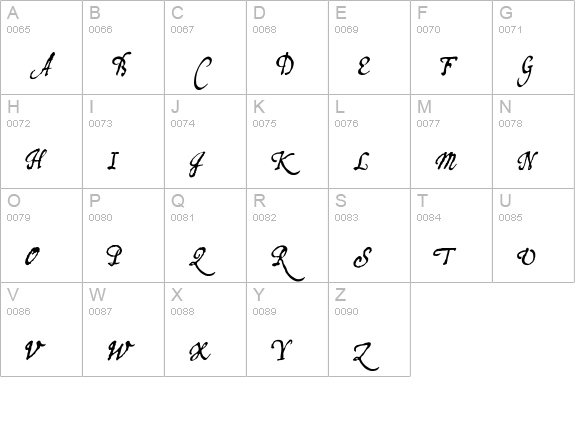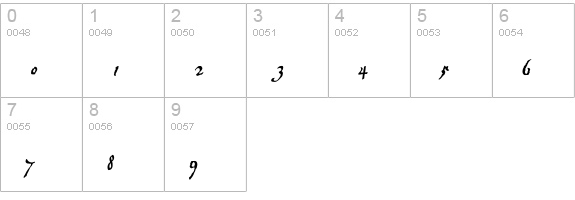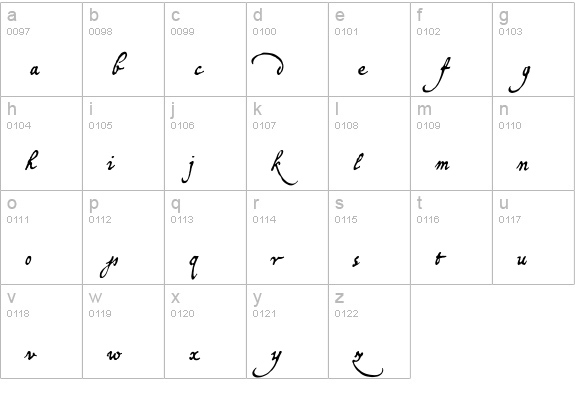
P22Broadwindsor Font Details
P22Broadwindsor is a timeless and elegant font that effortlessly captures the essence of classic typography. With its clean lines and graceful curves, this font exudes sophistication and charm. It brings a touch of vintage flair to any design project, whether it's a logo, packaging, or a wedding invitation. The beauty of P22Broadwindsor lies in its versatility. It can seamlessly transition from a formal and refined look to a more relaxed and approachable style. This font is perfect for adding a touch of class to your next project, no matter the theme or concept. What makes P22Broadwindsor even more impressive is that it is freely available to download at FontsMarket.com. This means that you can enjoy all the benefits of this stunning font without any cost. It's a rare opportunity to have access to such a high-quality typeface without having to spend a dime. The attention to detail in P22Broadwindsor is truly remarkable. Each letter is carefully crafted with precision and care, ensuring that every character is visually pleasing and harmonious. The result is a font that not only looks beautiful but also reads effortlessly. Whether you're a professional designer looking to elevate your work or an individual seeking a font that embodies elegance, P22Broadwindsor is the perfect choice. Its timeless appeal and freely available nature make it an invaluable addition to any font collection. Download P22Broadwindsor today at FontsMarket.com and experience the endless possibilities this font has to offer. Let it inspire and enhance your creative endeavors with its undeniable charm and elegance.